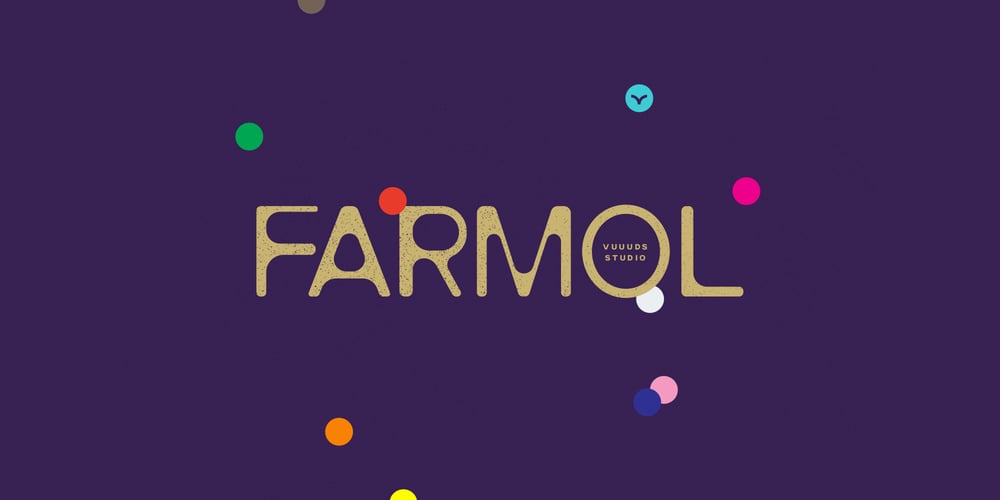
Farmol Font Family was designed by Agung Syaifudin and published by vuuuds. Farmol contains 1 styles and family package options. Introducing Farmol Font!Farmol is modern experimental display font, every single letters have been uniquely crafted.This font including beautiful alternate glyph. You can access the alternate glyph via Font Book (Mac user) or Windows Character Map (Windows user), I’ve been put the link tutorial inside the zip file.Foreign languages support: ÀÁÂÃÄÅÆÇÈÉÊËÌÍÎÏÐÑÒÓÔÕÖØÙÚÛÜÝàáâãäåæçèéêëìíîïðñòóôõöøùúûüýÿ߀£¥ŒŠŸ¢œšž©®™Thanks for looking.ig: vuuuds.studio